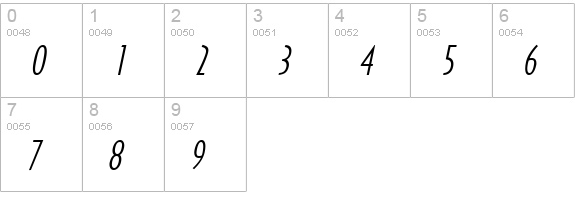
Southwestern Italic is a distinctive, italic variant in the Southwestern typeface family \xE2\x80\x94 well suited to design and typography projects.
Southwestern Italic font is a unique and captivating typeface that effortlessly combines the essence of the Old West with a modern twist. With its sleek and slanted design, this font exudes a sense of adventure and ruggedness, making it perfect for a wide range of creative projects. The Southwestern Italic font features beautifully crafted letterforms that are inspired by the iconic typography found in the American Southwest. Each character is meticulously designed to evoke a sense of the region's rich cultural heritage, while still maintaining a contemporary look and feel. This font is not just visually striking, but also highly versatile. Its italicized style adds a touch of elegance and sophistication to any design, whether it be for branding, advertising, packaging, or editorial purposes. From bold headlines to elegant body text, the Southwestern Italic font is sure to make a memorable impact. One of the standout features of the Southwestern Italic font is that it is free to download. You can easily access this stunning typeface at FontsMarket.com, a trusted online resource for high-quality fonts. Whether you're a professional designer or a hobbyist, this font is readily available for you to enhance your creative projects without any cost. So, if you're looking to add a touch of the Old West to your designs, while still maintaining a modern aesthetic, the Southwestern Italic font is the perfect choice. With its captivating style and the convenience of being freely available at FontsMarket.com, this font is sure to elevate your designs to the next level.